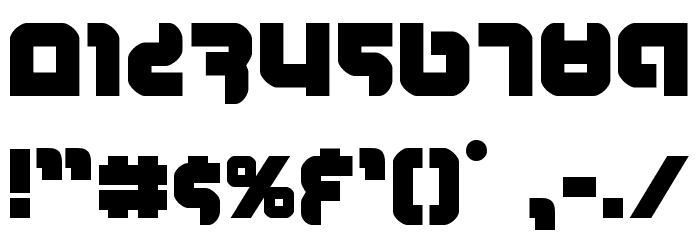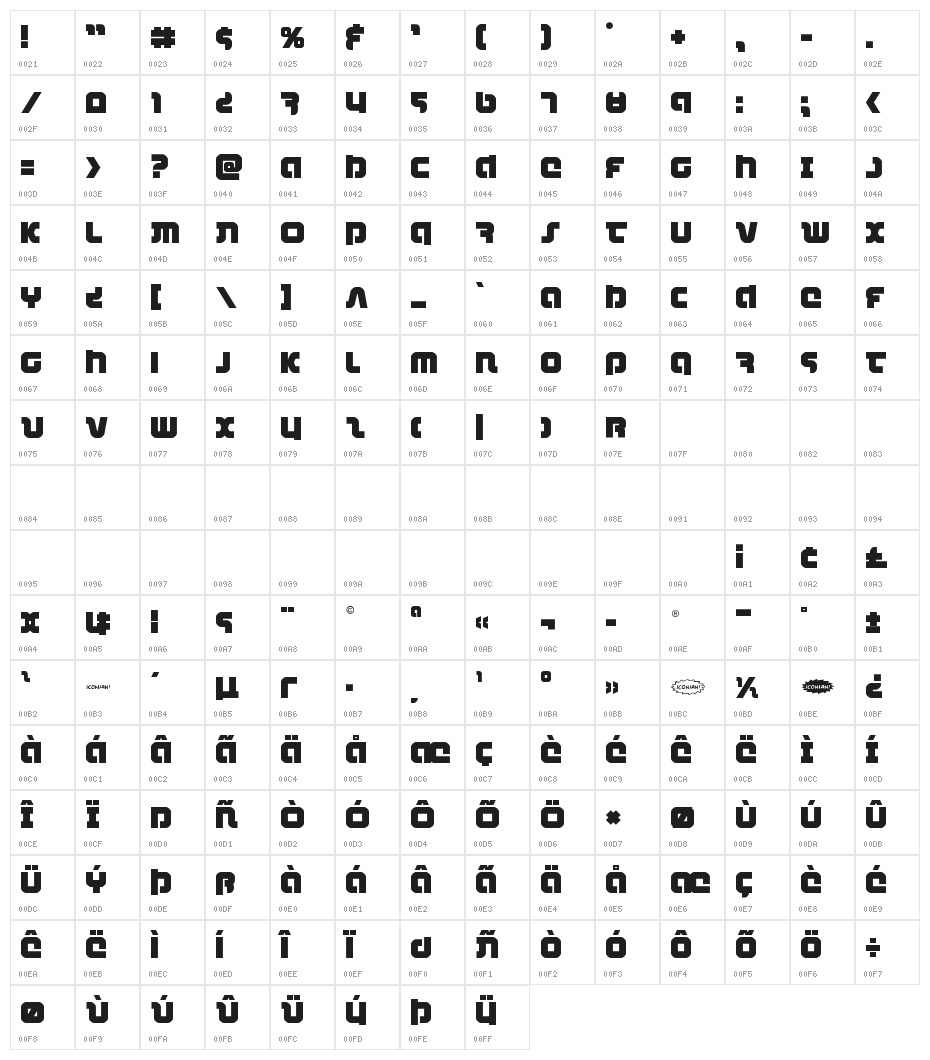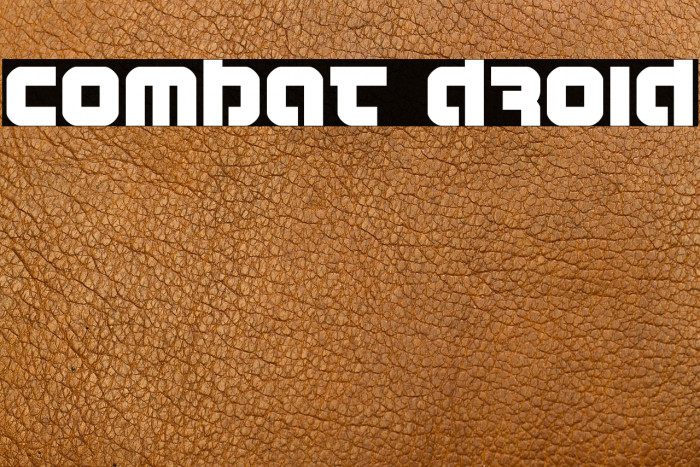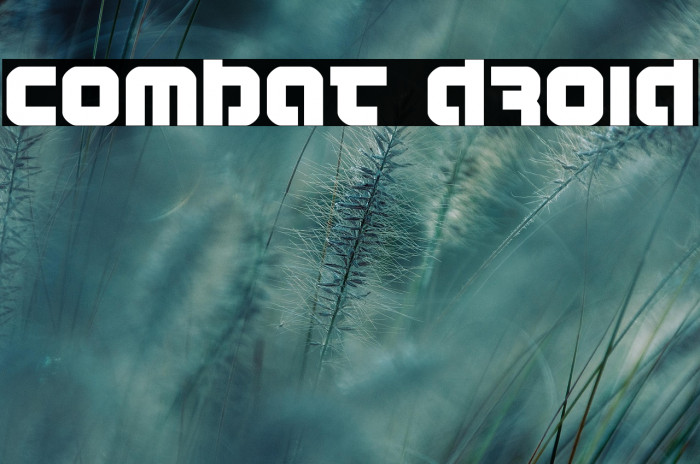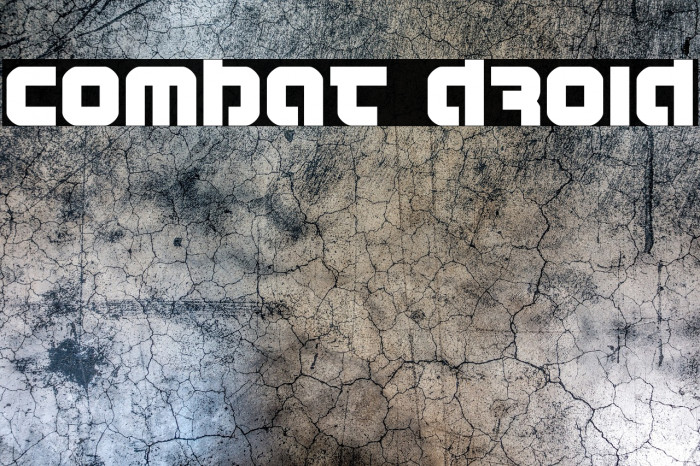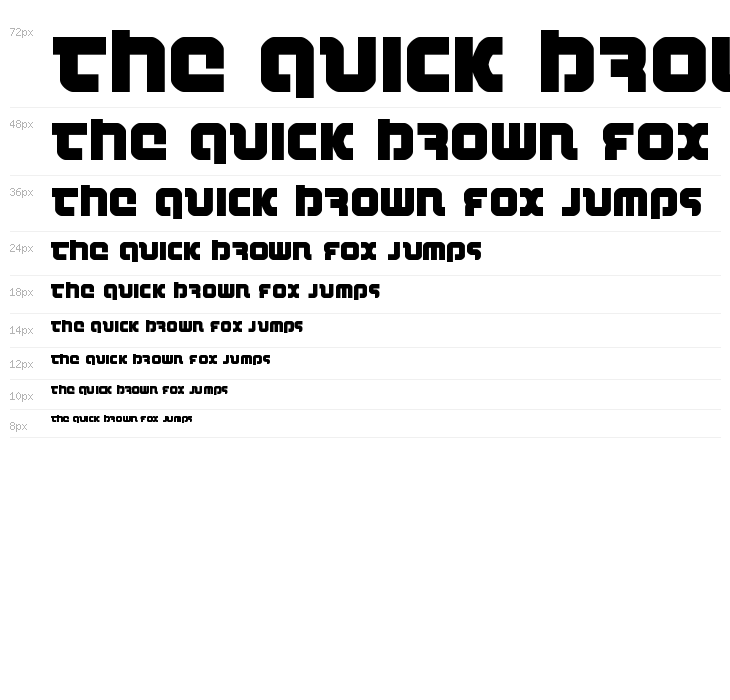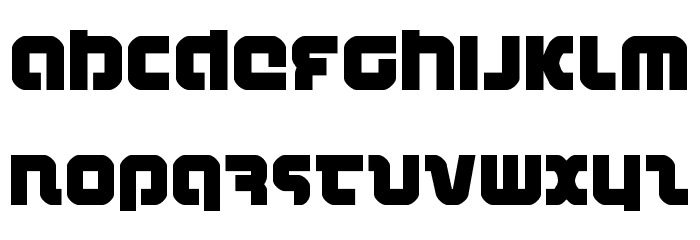
Combat Droid Font
Combat Droid Description
This font exhibits a bold, futuristic design with a strong geometric structure. The characters are blocky and robust, featuring sharp angles and a uniform thickness throughout. The uppercase and lowercase letters share a similar height, creating a cohesive and compact appearance. The numerals and special characters maintain the same bold style, ensuring consistency across all glyphs. This font's design is reminiscent of digital or sci-fi themes, making it ideal for projects that require a modern and tech-oriented aesthetic.